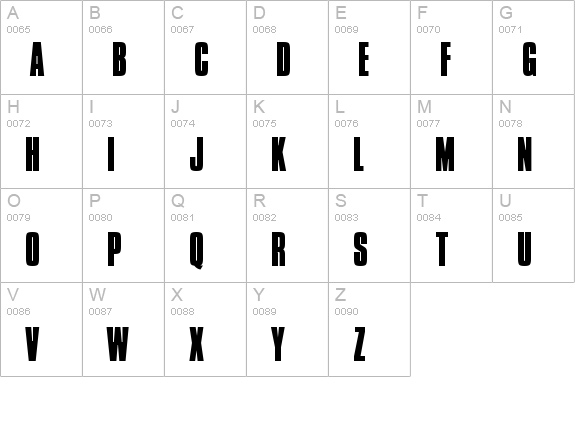
Commador Heavy Normal Font Details
Commador Heavy Normal is a heavy, high-impact variant in the Commador typeface family \xE2\x80\x94 well suited to high-impact headlines, posters, and display advertising.
Commador Heavy Normal font is a versatile and stylish typeface that exudes a sense of strength and sophistication. Its bold and commanding appearance makes it perfect for headlines, titles, and other prominent text elements. The strong, thick letterforms of Commador Heavy Normal make a bold statement while still maintaining a sense of elegance. This font is ideal for a wide range of design projects, from branding and advertising to packaging and editorial design. Whether you're looking to make a statement or simply want to add a touch of boldness to your designs, Commador Heavy Normal is sure to make an impact. Best of all, Commador Heavy Normal is available for free download at FontsMarket.com. So go ahead and add this powerful and stylish font to your collection today!